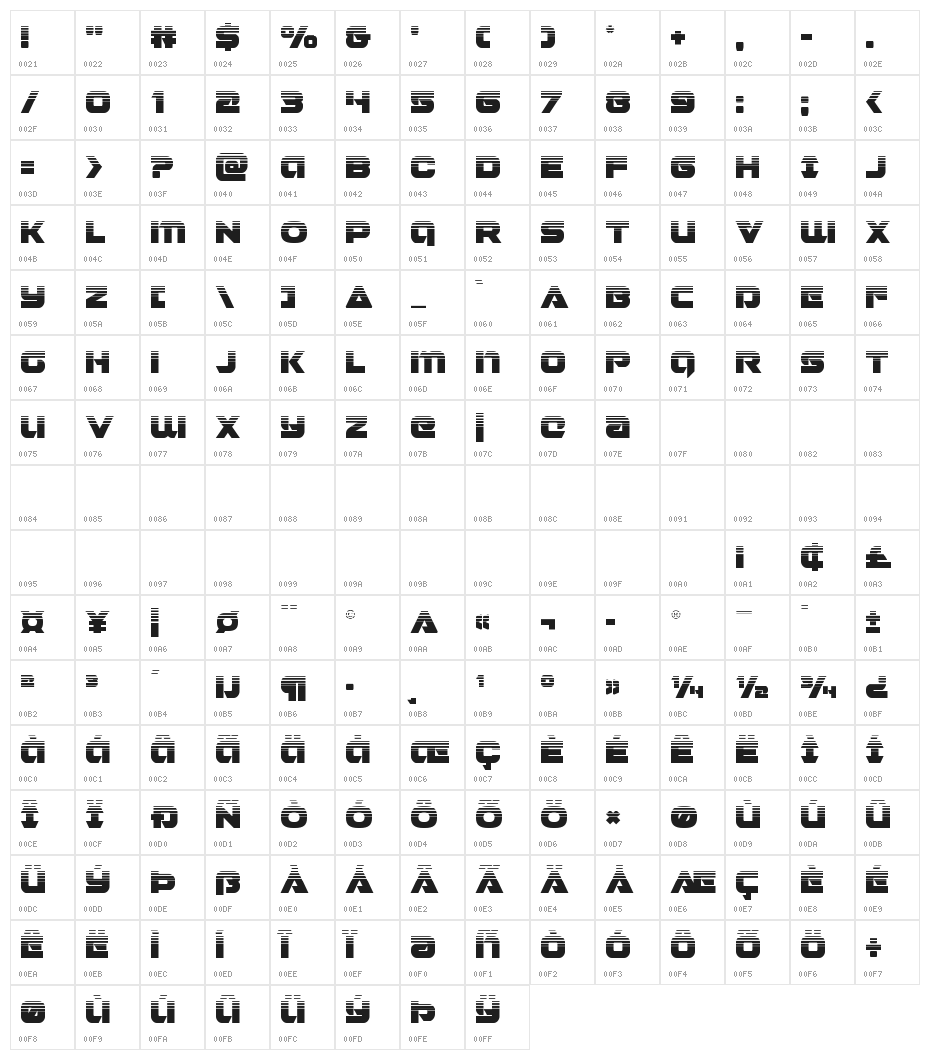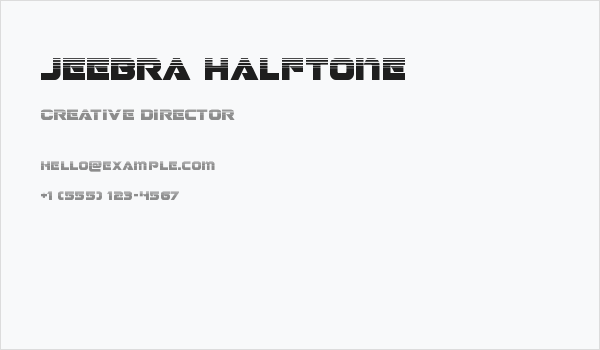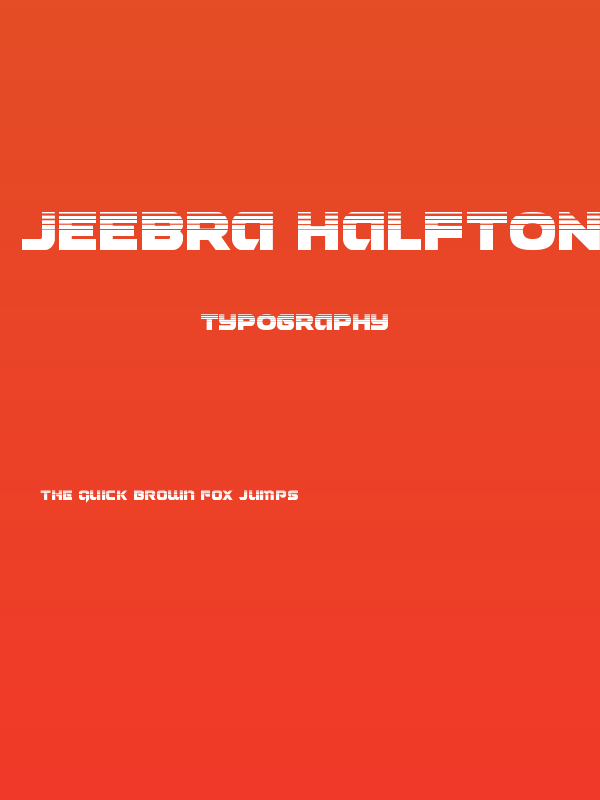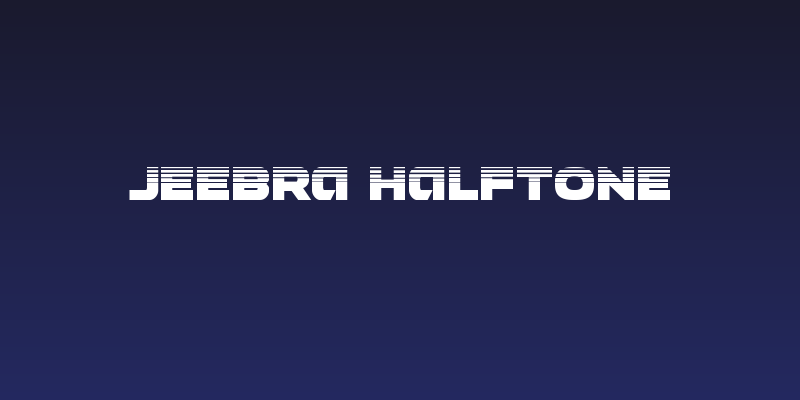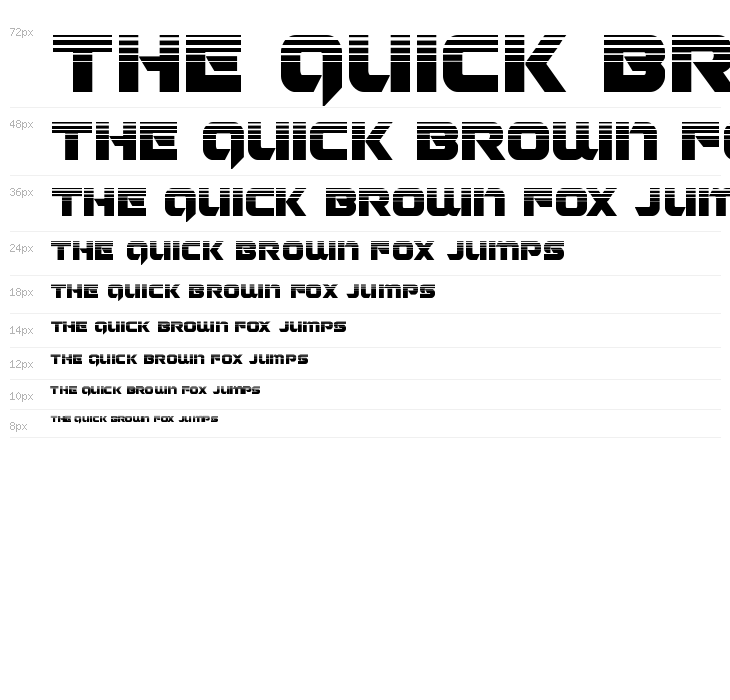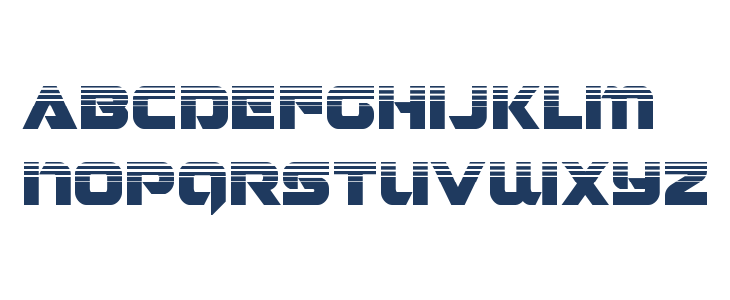
Jeebra Halftone Font
Jeebra Halftone Description
This font features a bold, geometric design with a halftone effect that gives it a modern and dynamic appearance. The characters are constructed with solid black shapes interspersed with horizontal white lines, creating a striking visual contrast. The uppercase and lowercase letters maintain a consistent style, with angular edges and a blocky structure that enhances readability while adding a unique flair. The numerals and special characters follow the same design principles, ensuring uniformity across all glyphs. This font is ideal for projects that require a bold statement, combining both retro and futuristic elements.